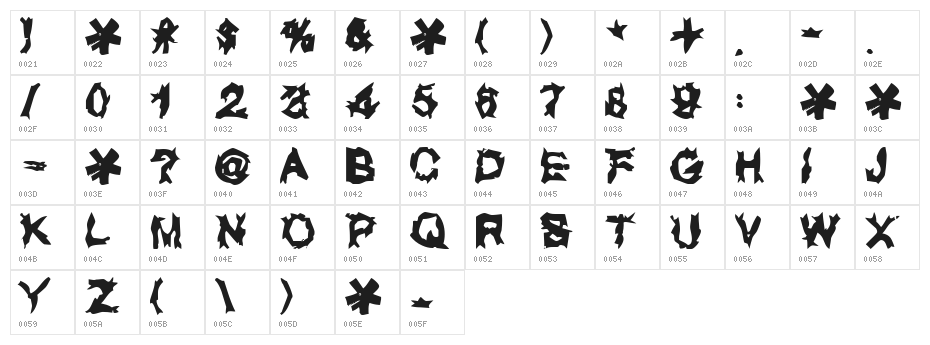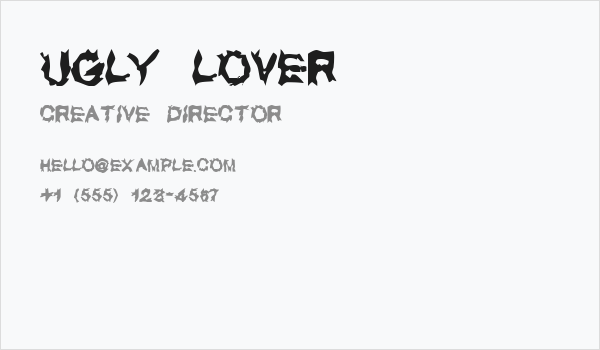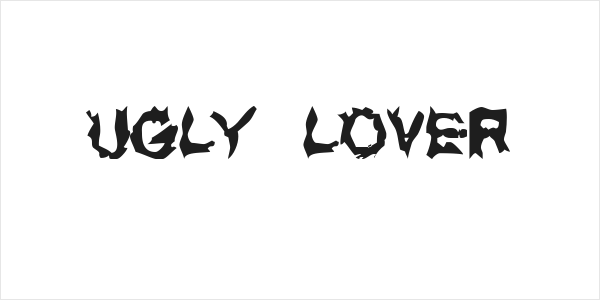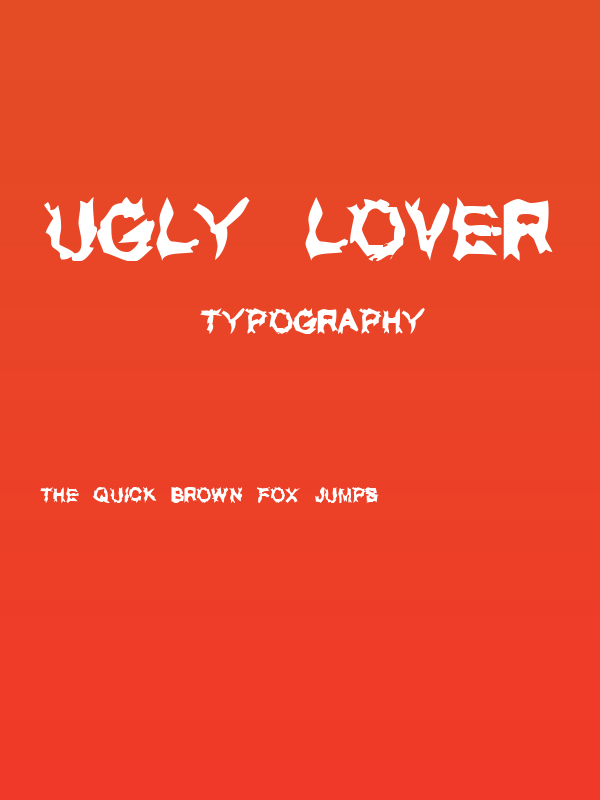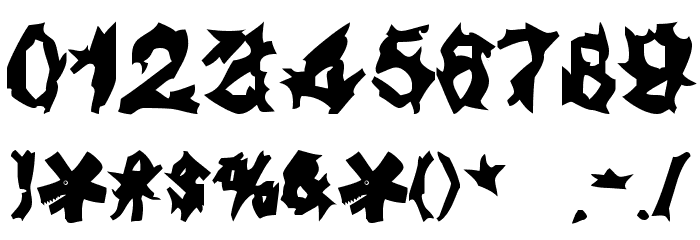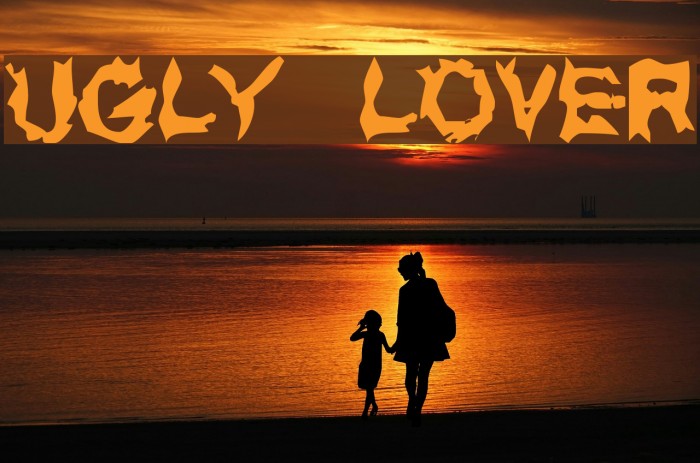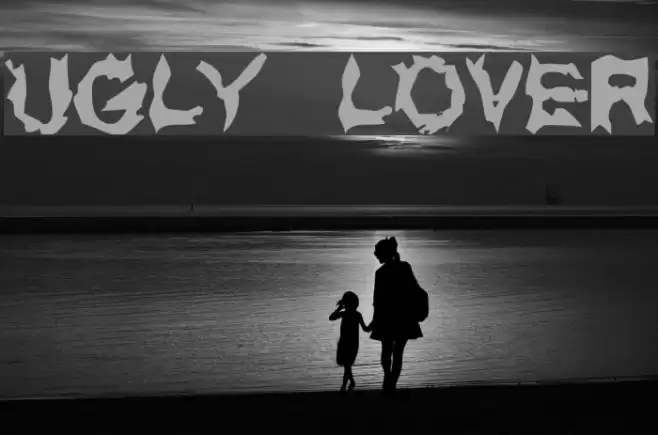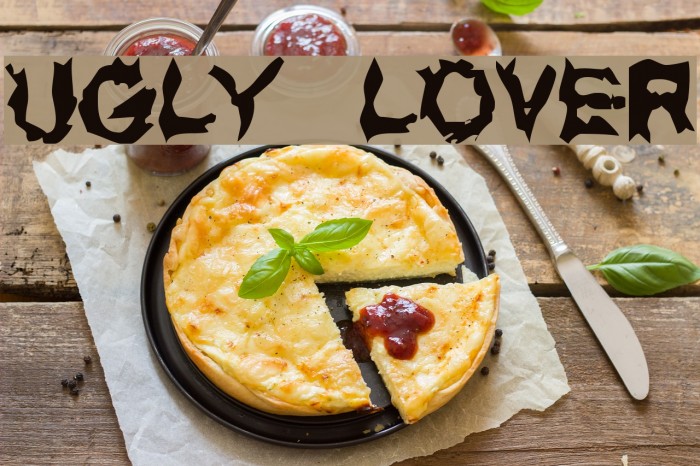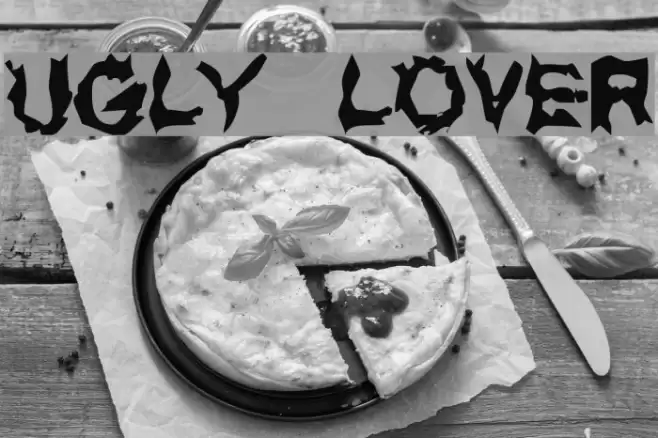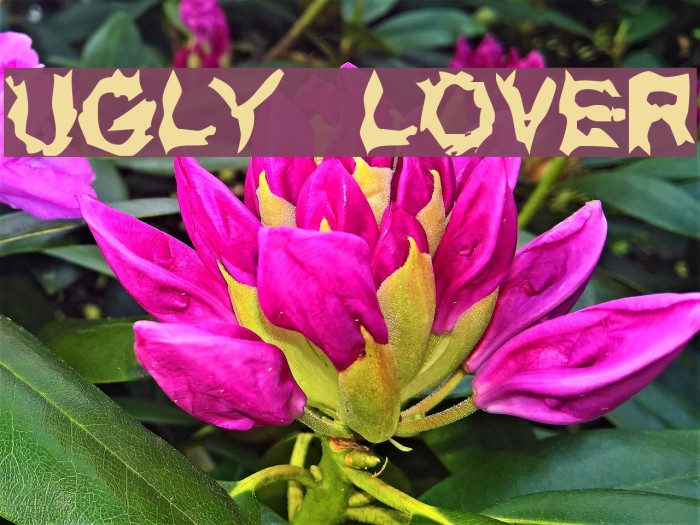
UGLY LOVER Font
UGLY LOVER Description
This font features a highly irregular and jagged design, reminiscent of torn paper or shattered glass. Each character is uniquely distorted, creating a chaotic and edgy appearance. The uppercase and lowercase letters maintain a consistent style, with sharp angles and uneven edges. The numbers and special characters follow the same aesthetic, adding to the overall disordered look. This font is bold and eye-catching, making it suitable for projects that require a strong visual impact.
| Proposed Projects | Ideal for horror-themed posters, album covers, or edgy graphic designs. |